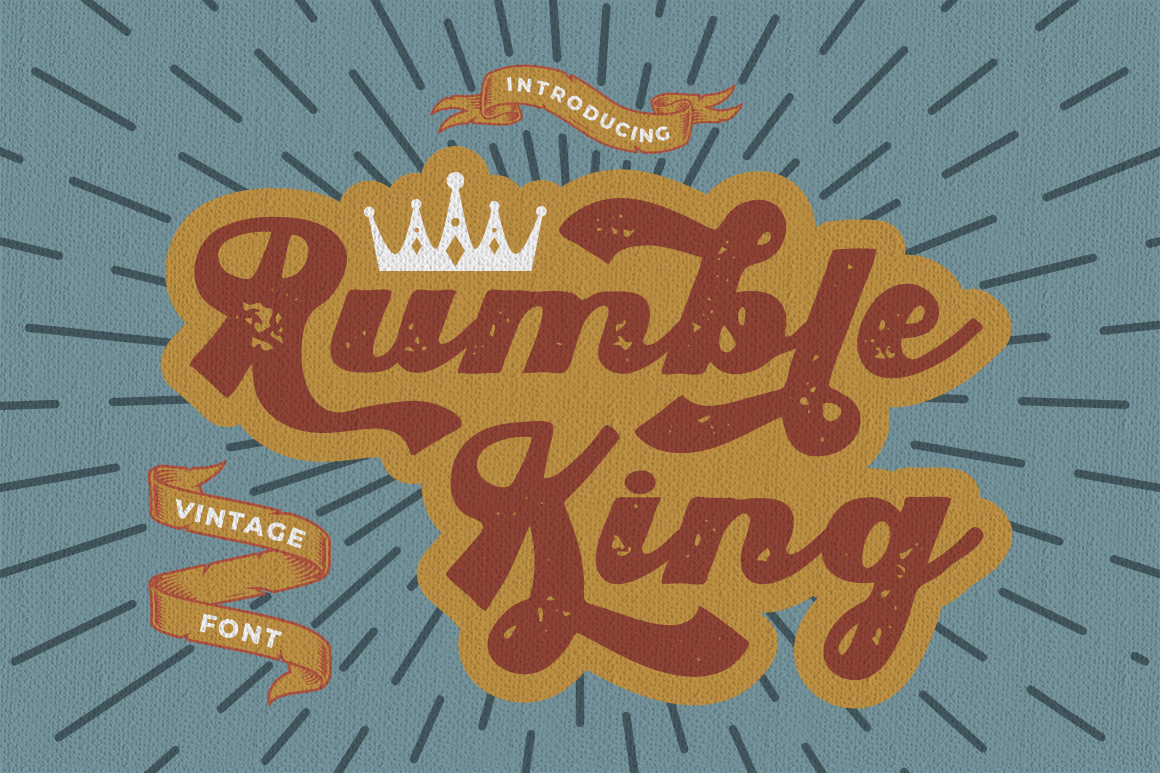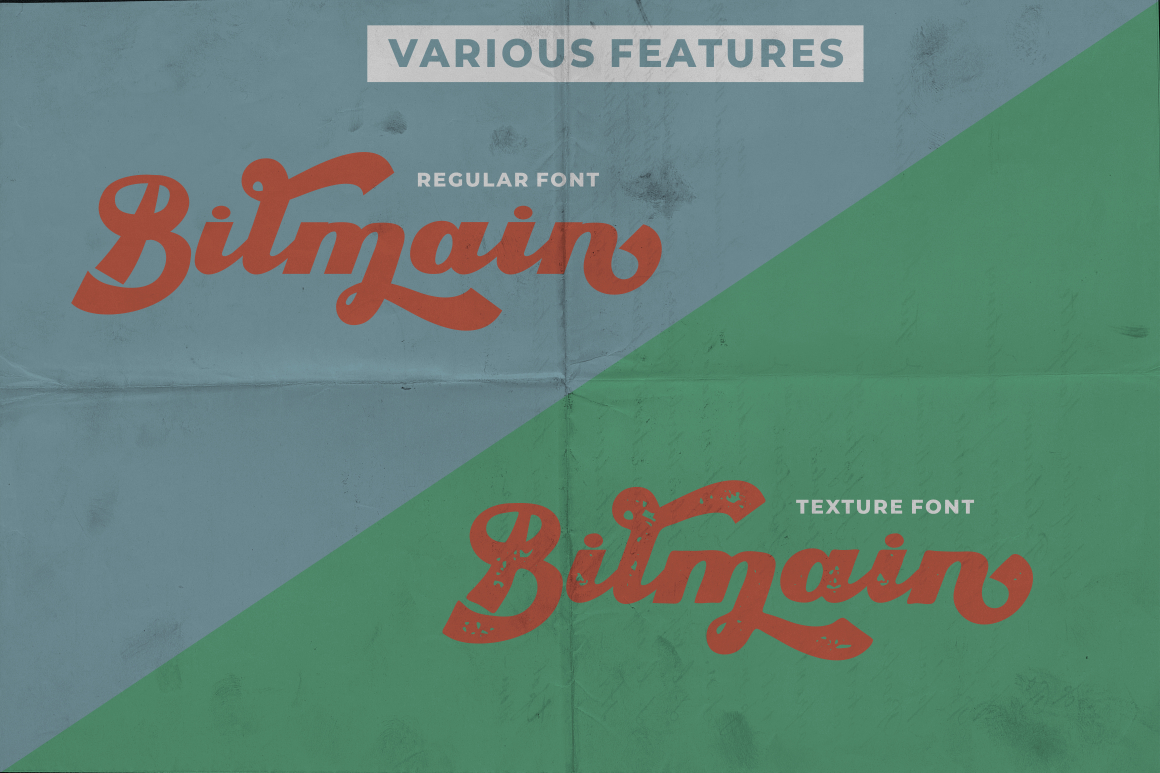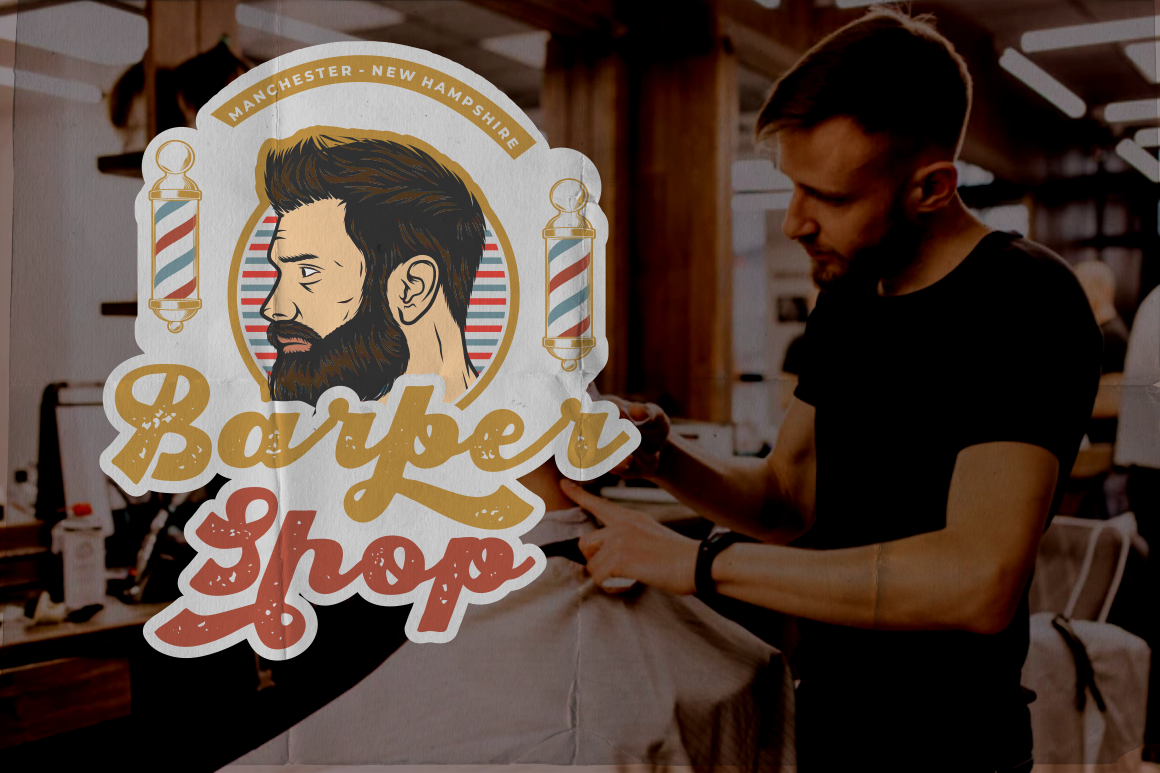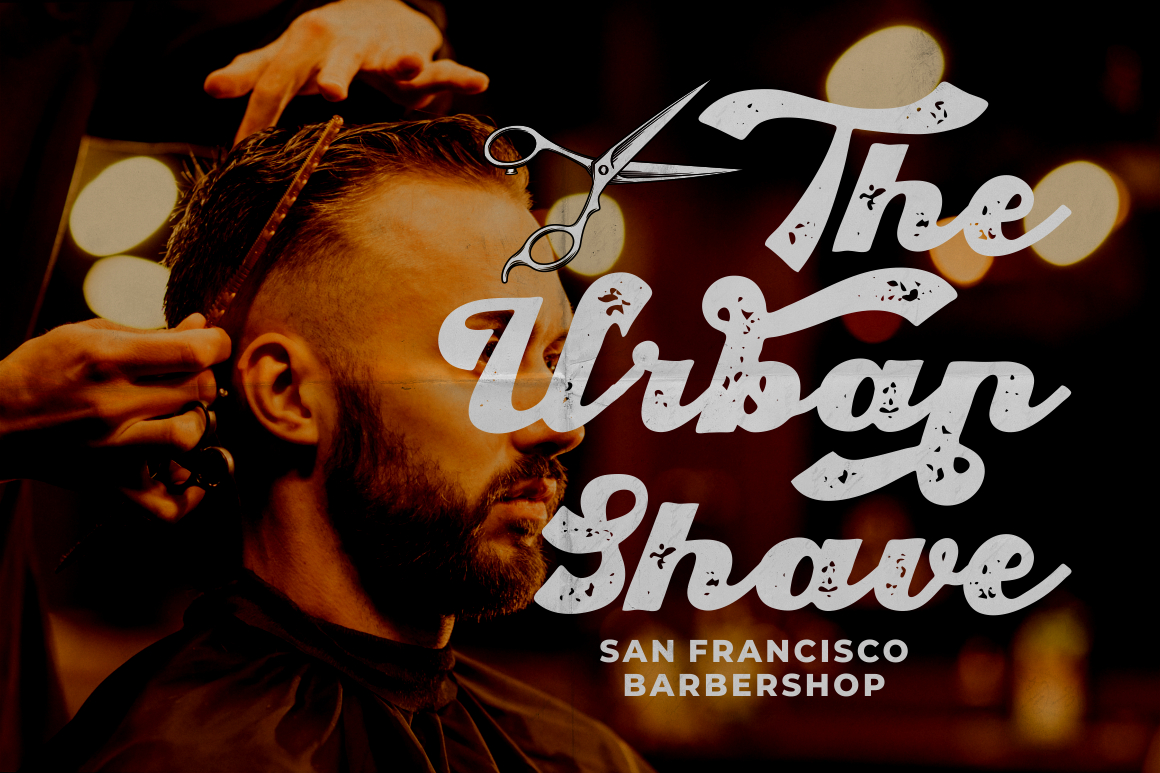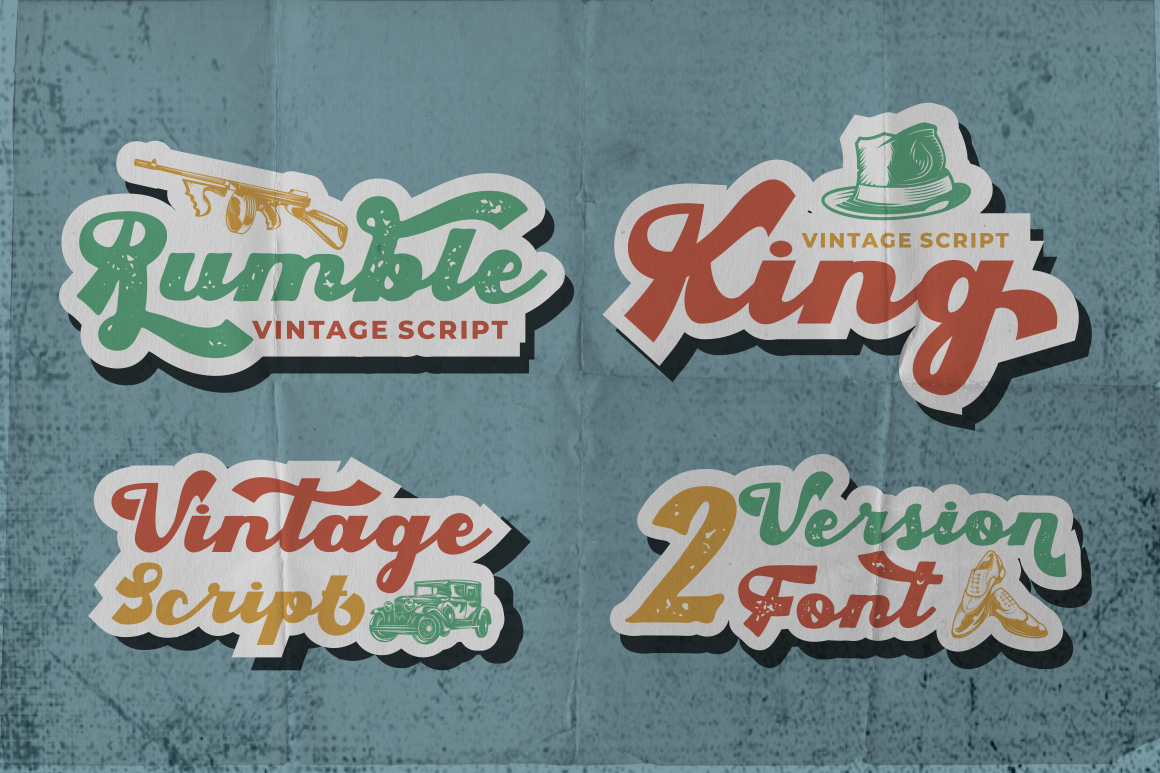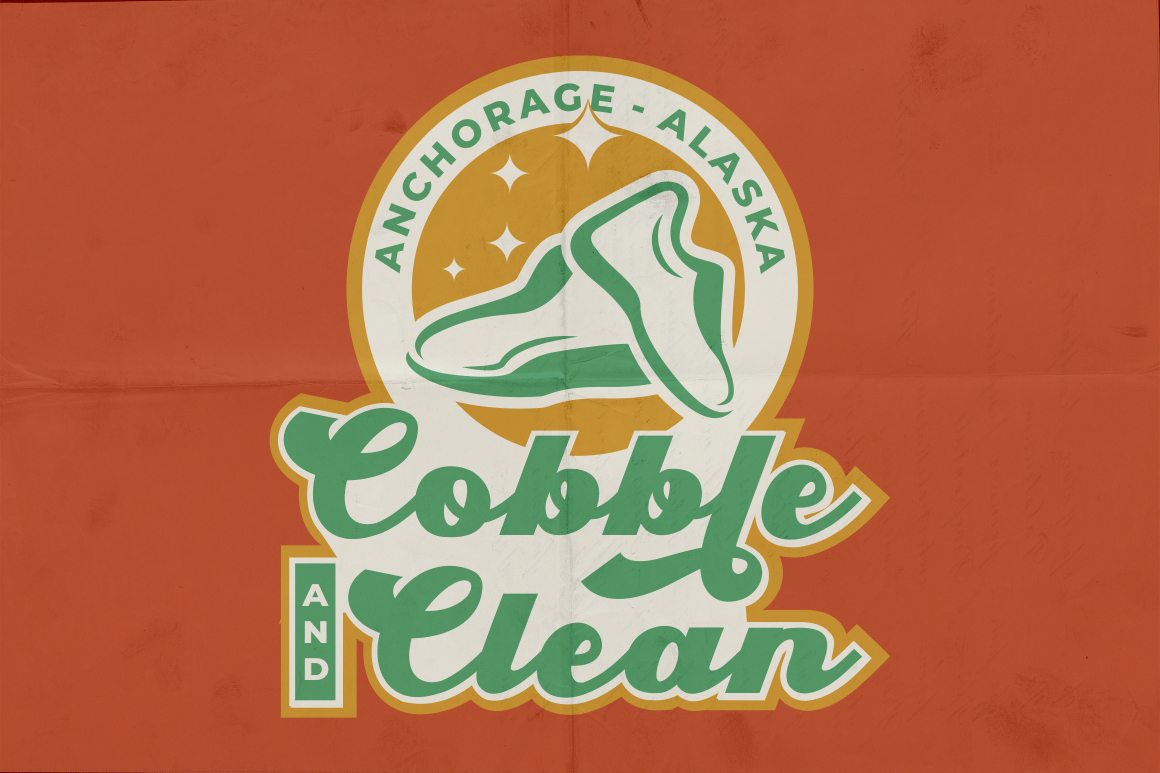
Rumble King is a vintage script font designed by PutraCetol Studio. This font is perfect for creating a retro feel in your designs, such as posters, logos, packaging, and branding.
The Rumble King font features a unique and stylish script design that is sure to catch the eye of anyone who sees it. The font has a bold and thick stroke that gives it a strong and powerful look, making it perfect for designs that need to stand out.
One of the best things about the Rumble King font is the variety of alternates and ligatures that it offers. With over 500 glyphs, this font offers a range of different options for each character, allowing you to create truly unique designs. This font is also available in both regular and bold weights, giving you even more versatility when it comes to creating your designs.
Another great feature of the Rumble King font is its multilingual support. This font supports a wide range of languages, including English, Spanish, French, German, and more. This makes it a great choice for designers who work with clients from around the world.
Overall, the Rumble King font is a great choice for anyone looking to add a vintage touch to their designs. With its unique script design, bold strokes, and variety of options, this font is sure to make your designs stand out. So why not give it a try and see what you can create with it?